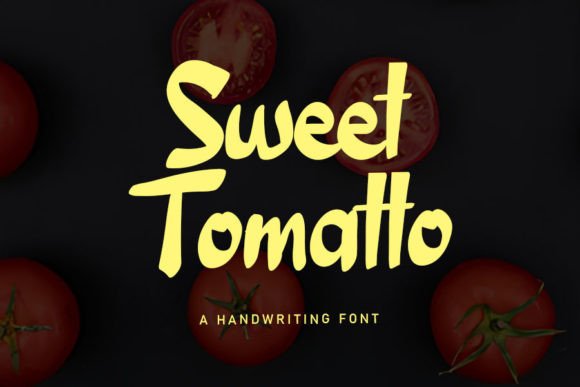
In a world of digital expression, let your words dance with a touch of whimsy and charm. Introducing Sweet Tomatto Font, a delightful script typeface that will transform your designs into captivating works of art. Crafted with love by Leontyn Art, this font is not just a collection of letters; it's an invitation to embark on a creative journey where imagination knows no bounds.
Picture this: A Christmas morning, the air filled with anticipation and joy. As you carefully wrap presents, adorned with handwritten labels, each stroke of the Sweet Tomatto Font tells a story of love and warmth. Your loved ones' faces light up as they unwrap their gifts, feeling the magic of the season through the unique touch of your personalized messages.
Sweet Tomatto Font is more than just a font; it's a gateway to a world of endless creative possibilities. Whether you're designing logos that pop, branding that captivates, or posters that inspire, this script font adds a playful and quirky touch that sets your work apart. Unleash your inner artist and let your creativity soar with Sweet Tomatto Font.
With its charming handwritten style, Sweet Tomatto Font brings a sense of authenticity and warmth to your designs. It's the perfect choice for crafting heartfelt invitations, elegant wedding stationery, or whimsical social media graphics. The font's playful personality shines through in every letter, making it ideal for adding a touch of whimsy to your everyday projects.
But don't let its playful nature fool you; Sweet Tomatto Font is also remarkably versatile. Its carefully crafted characters blend seamlessly with a wide range of design styles, from rustic and vintage to modern and minimalist. Whether you're working on a personal project or a professional campaign, this font is sure to leave a lasting impression.
So, if you're ready to infuse your designs with a touch of charm, personality, and festive flair, look no further than Sweet Tomatto Font. Let your creativity bloom and create designs that capture hearts and imaginations. With this font by your side, every project becomes a delightful adventure, filled with endless possibilities.